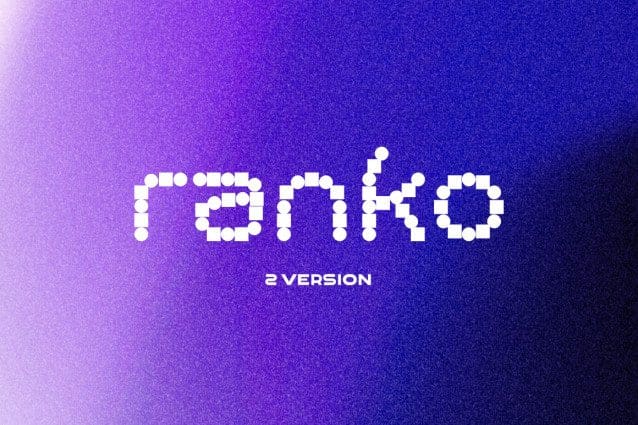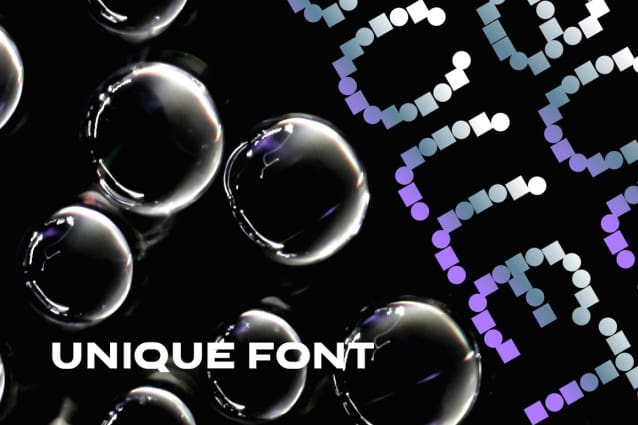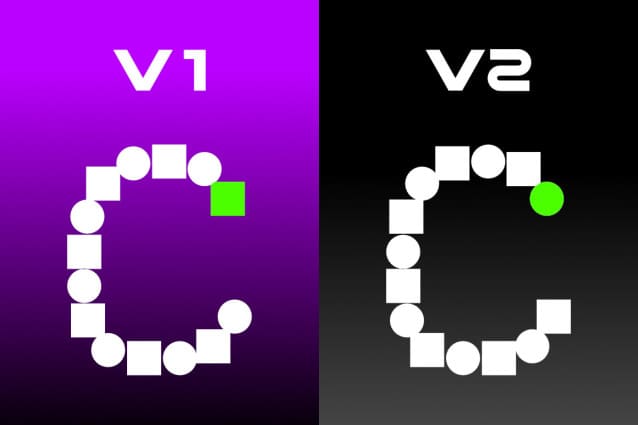
Roinert One Round Sq Font
Roinert One Round Sq Font is a futuristic font with a pixel art appeal. Its unique style is perfect for space exploration, tech aesthetics, gaming, and futuristic creative designs. Whether you’re working on a sci-fi poster, a gaming interface, or pixel-inspired art, Pixel Space brings a bold, modern touch to your projects.
Designer Name: ffeeaarr